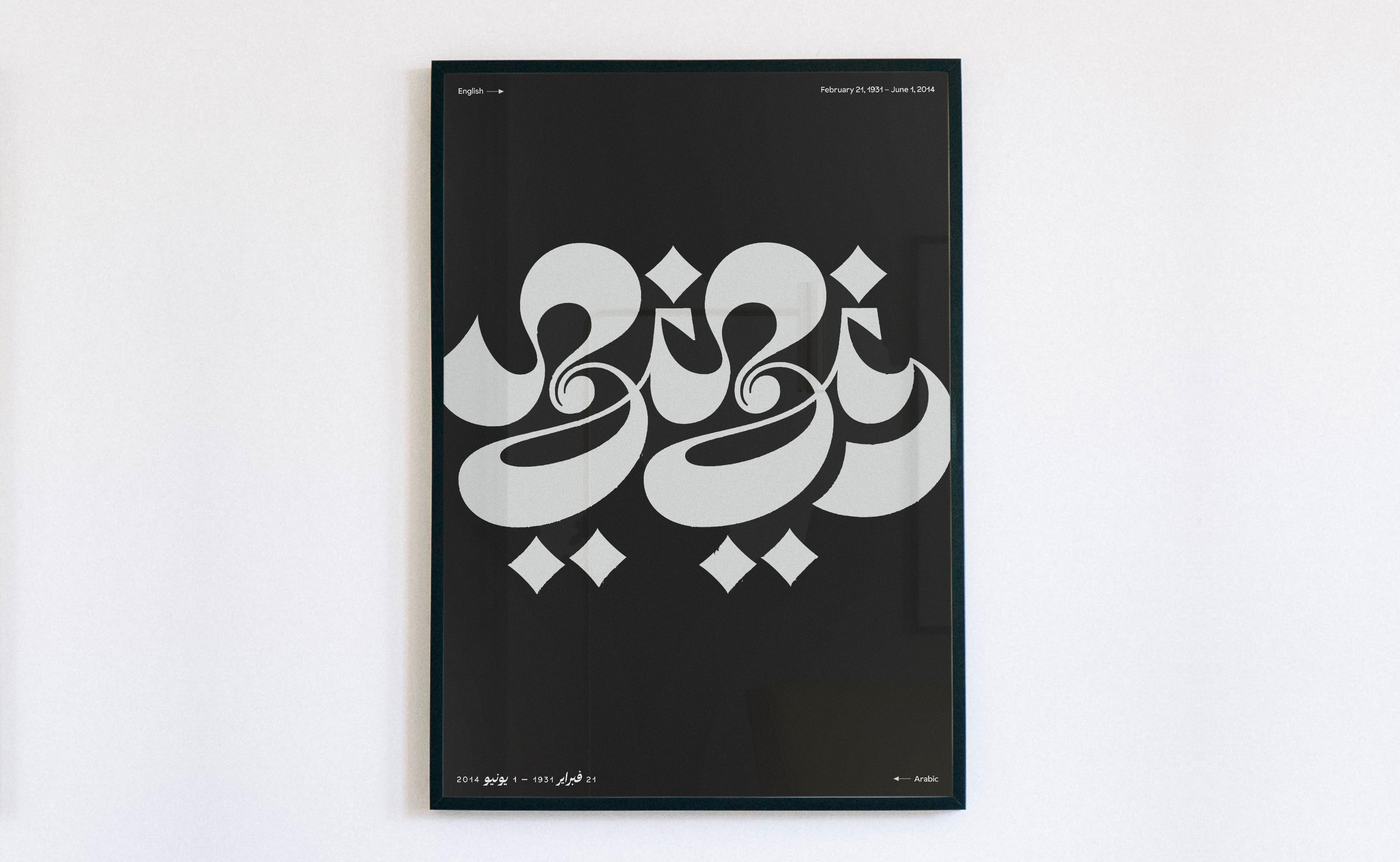
“Zizi”
Poster
Zizi Nassour was an incredible woman who fled political upheaval in 1960’s Egypt.
She had to pretend her family was going on vacation to the United States. And make her three young kids pack one single bag before saying goodbye to their friends and home forever.
This custom lettering of her name reads in English (left to right) and Arabic (right to left). It aims to fuse the typographic landscape of Egypt and Los Angeles where she would spend the rest of her days raising my father.
All latin based type is set in Sunset Gothic which is modeled after the uniquely Californian '60s hand lettering style of John Baldessari, a visual staple of the Los Angeles they escaped to.
My grandmas nickname “Zizi” reads forwards in English and backwards in Arabic (loosely). The English letter “i” makes a Z sound in Arabic and the lower case cursive “z” shape makes an “i” sound.